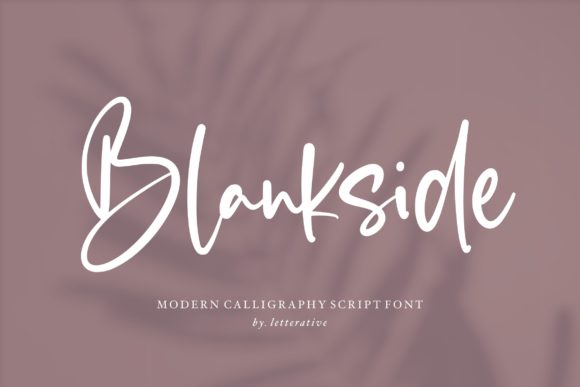
Introducing Blankside Font, the Exquisite Handwritten Masterpiece!
In a world bustling with digital creations, your designs deserve a touch of authenticity and charm. Blankside Font, the brainchild of letterativestudio, is here to bestow upon your projects an enchanting handmade allure that captivates hearts. This remarkable script font exudes a personality that's both graceful and playful, making it the perfect choice for a wide range of design endeavors.
Blankside Font's unique asymmetrical style lends an organic, handwritten feel to your creations, evoking a sense of intimacy and connection. Its carefully crafted glyphs dance across the page with a fluidity that mimics the natural rhythm of pen on paper. Whether you're crafting wedding invitations, heartfelt thank-you cards, or inspiring quotes, Blankside Font imbues your words with a sincerity that resonates with your audience.
Beyond its aesthetic appeal, Blankside Font is a versatile workhorse that seamlessly adapts to diverse design needs. Its delicate charm complements logos, business cards, and branding materials, adding a touch of sophistication and elegance. Unleash your creativity and let Blankside Font elevate your designs to new heights, leaving a lasting impression on all who encounter them.
Discover the Boundless Possibilities of Blankside Font:
♥ Elevate Wedding Invitations: Transform your wedding invitations into cherished keepsakes with Blankside Font's enchanting handwritten style. Its delicate strokes evoke a sense of romance and intimacy, capturing the essence of your special day.
♥ Personalize Thank-You Cards: Express your gratitude with heartfelt thank-you cards adorned with Blankside Font's graceful script. Its charming asymmetry adds a personal touch that conveys your sincere appreciation.
♥ Create Captivating Quotes: Inspire and uplift with beautifully rendered quotes brought to life by Blankside Font. Its organic flow enhances the emotional impact of each word, leaving a lasting impression on readers.
♥ Design Soulful Greeting Cards: Craft heartwarming greeting cards that resonate with loved ones. Blankside Font's playful personality adds a touch of whimsy and joy to every message, making your cards truly unforgettable.
♥ Craft Distinctive Logos and Branding: Make a statement with logos and branding materials that exude elegance and sophistication. Blankside Font's timeless charm lends a touch of distinction, helping your brand stand out from the crowd.
♥ Personalize Business Cards: Create business cards that leave a lasting impression. Blankside Font's delicate script adds a touch of professionalism and warmth, setting you apart from competitors and fostering meaningful connections.
Blankside Font is more than just a font; it's an artistic expression that breathes life into your designs. It's the perfect choice for those seeking a font that captures the essence of handwritten beauty and authenticity. Embrace the power of Blankside Font and elevate your designs to new levels of creativity and engagement.